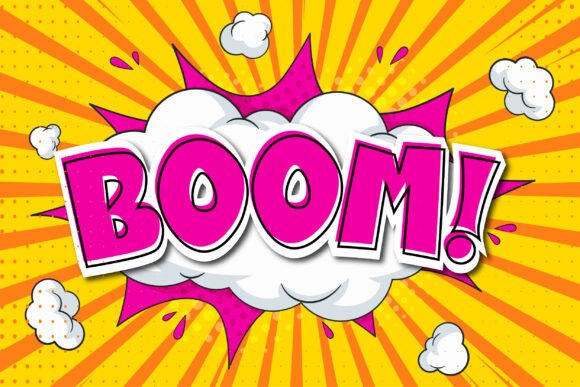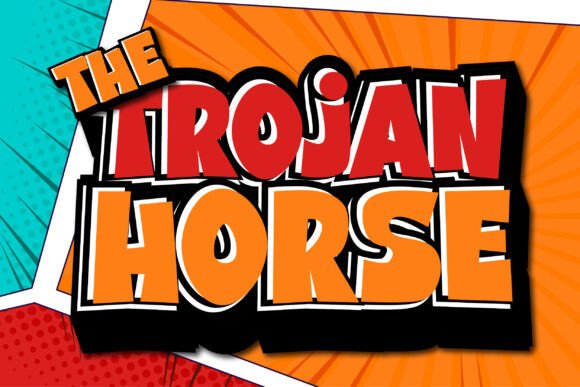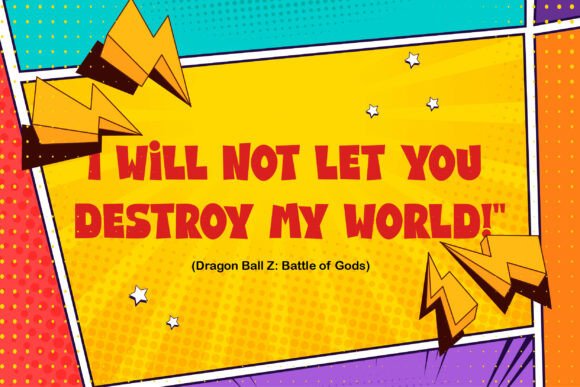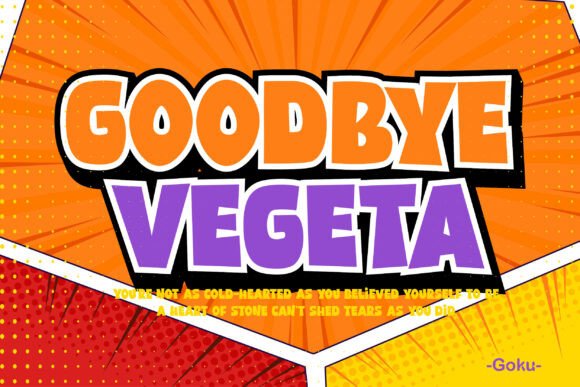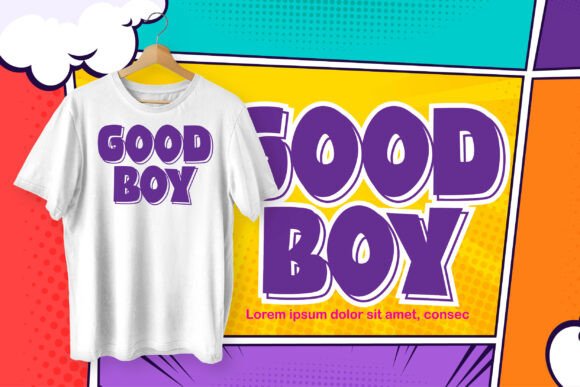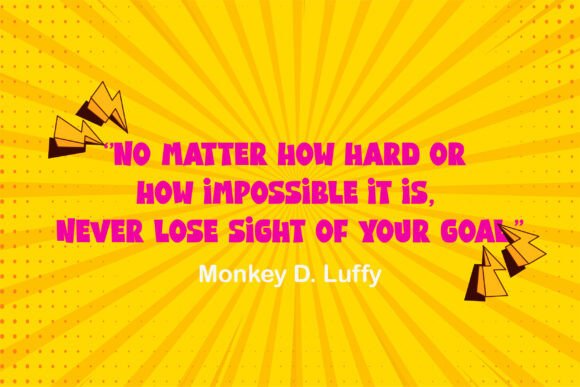
Introduction to Moon Comic Font
Have you ever stared at a blank canvas, desperately searching for the perfect font to bring your creative project to life? You’ve scrolled through endless options, but nothing seems to capture the playful vibe you’re going for. That’s where the Moon Comic Font comes in – a stunning cartoon-style display font that’s guaranteed to make your design stand out.
With its bold characters and eye-catching appearance, Moon Comic Font is the perfect addition to any creative project. Whether you’re working on a humorous meme, a comic book title, or a social media quote, this font is sure to add a touch of whimsy and personality. And the best part? It’s free to download and use as a valuable design resource.
As a designer, you know how valuable it is to have access to high-quality fonts that can elevate your work. Moon Comic Font is a game-changer, offering a transparent background that allows you to easily integrate it into your designs. So why settle for ordinary when you can dare to be different with the Moon Comic Font?
Key Features of Moon Comic Font
- High-quality, hand-drawn design ideal for creative projects requiring a unique, comic book-inspired aesthetic.
- Font size: 1000 glyphs, covering a wide range of characters and symbols.
- Resolution: High-resolution design, suitable for use in both print and digital applications.
- Unique characteristics include intricate details and expressive line work, adding a touch of personality to any creative project.
Honest Review: Moon Comic Font
I recently came across the Moon Comic Font while searching for a free download to add some flair to my latest creative project. As a designer, I’m always on the lookout for high-quality design resources that can elevate my work.
The Moon Comic Font has some great features that make it a solid choice for designers. Here are a few things that work well:
- The font has a unique, hand-drawn style that can add a lot of character to your designs.
- It’s available with a transparent background, making it easy to use with custom graphics and backgrounds.
While the Moon Comic Font is a great addition to any designer’s toolkit, there are a few limitations to be aware of: ⚠️
- The font may not be as versatile as some other options, and it’s best suited for projects with a more playful or comic-book inspired aesthetic.
Overall, I’m impressed with the Moon Comic Font and would recommend it to designers looking for a high-quality, free design resource. With its unique style and transparent background, it’s a great choice for adding some personality to your creative projects. ✨
Moon Comic Font
Using Moon Comic Font in Creative Projects
You can use the Moon Comic Font in a variety of creative projects, such as digital art, graphic design, and typography. It’s ideal for creating high-quality designs with a unique, comic book-inspired style.
The Moon Comic Font is commonly used in:
- Comic book and graphic novel design.
- Children’s book illustrations.
- Video game design and development.